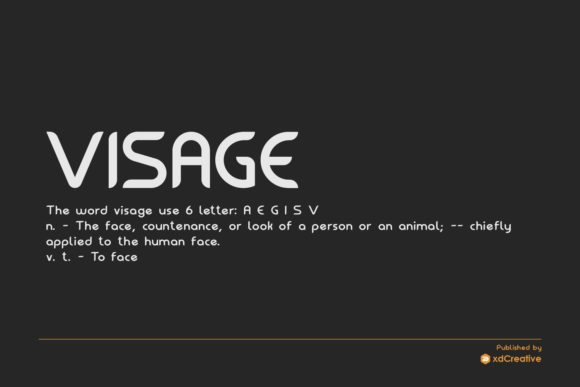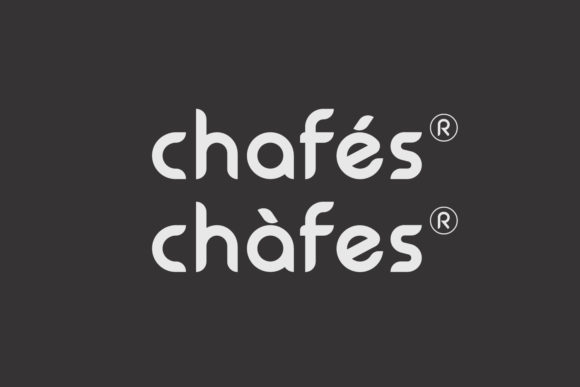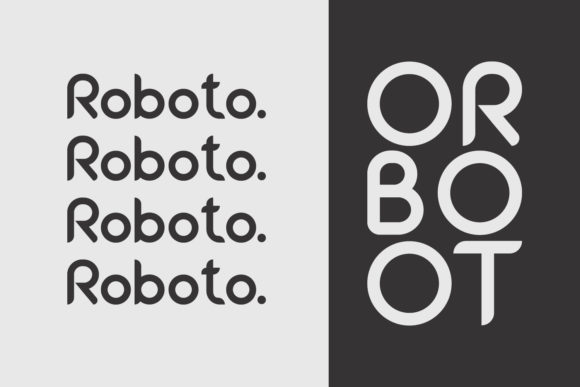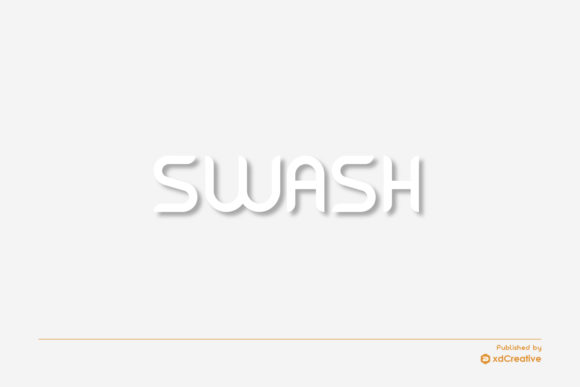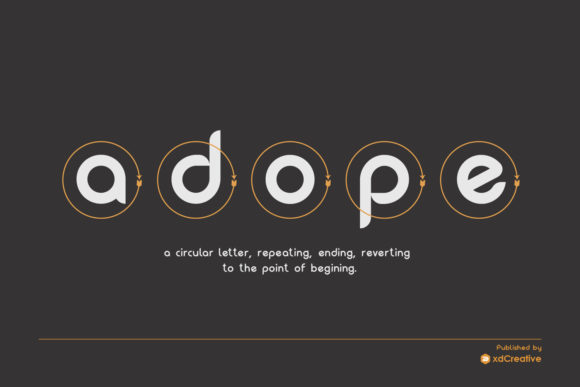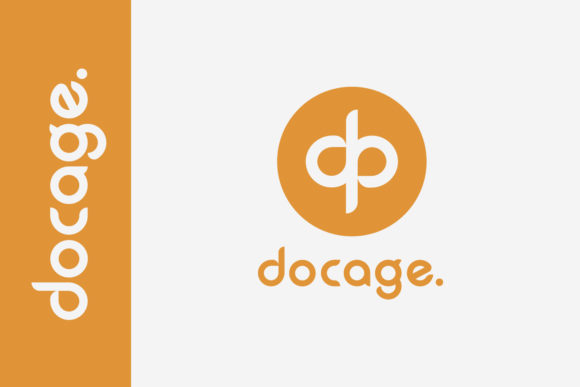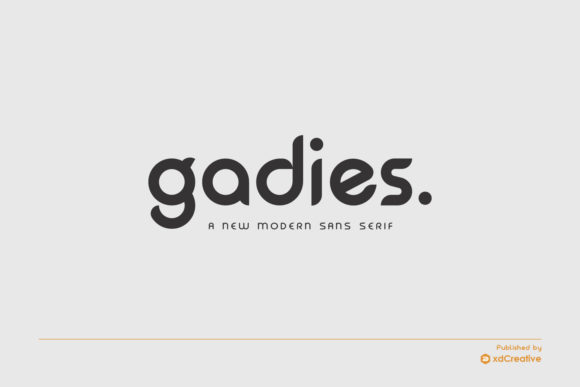
Gadies Font: Elevate Your Designs with a Modern Sans Serif Style
In the world of typography, fonts play a crucial role in conveying messages, expressing emotions, and creating visual identities. For designers and crafters, finding the perfect font can be a daunting task, especially when it comes to creating stunning visual effects. This is where Gadies Font comes into play – a modern sans serif font that is taking the design world by storm.
What is Gadies Font?
Gadies Font is a contemporary sans serif font designed to make a statement. Its clean lines, simple shapes, and fun style make it an excellent choice for a wide range of design projects, from formal presentations to non-formal social media graphics. With its unique and refreshing aesthetic, Gadies Font is perfect for designers looking to add a touch of modernity to their work.
Key Features of Gadies Font
- Modern Sans Serif Style: Gadies Font boasts a sleek and modern sans serif design, making it perfect for projects that require a clean and minimalist look.
- Fun and Playful: Despite its modern and sleek design, Gadies Font has a fun and playful side, making it suitable for non-formal designs, such as social media graphics, posters, and flyers.
- Versatile: Gadies Font is an incredibly versatile font that can be used in a variety of design projects, from formal presentations and reports to creative crafts and DIY projects.
- Easily Readable: The font is designed to be easily readable, even at small sizes, making it perfect for body text, headings, and titles.
Uses of Gadies Font
Gadies Font is an excellent choice for a wide range of design projects, including:
- Graphic Design: Use Gadies Font to create stunning graphic designs, such as posters, flyers, brochures, and social media graphics.
- Branding and Identity: Create a unique visual identity for your brand with Gadies Font, perfect for logos, business cards, and letterheads.
- Web Design: Enhance your website’s typography with Gadies Font, suitable for headings, titles, and body text.
- Crafts and DIY Projects: Add a personal touch to your craft projects, such as handmade cards, invitations, and scrapbooking.
Why Choose Gadies Font?
With so many fonts available, why choose Gadies Font? Here are a few reasons:
- Unique Style: Gadies Font offers a unique and refreshing style that will make your designs stand out from the crowd.
- High-Quality: Gadies Font is a high-quality font designed to deliver exceptional results, even at large sizes.
In conclusion, Gadies Font is an exceptional modern sans serif font that is perfect for designers and crafters looking to elevate their designs. Its unique style, versatility, and ease of use make it an excellent choice for a wide range of design projects. Whether you’re working on a formal presentation or a non-formal social media graphic, Gadies Font is sure to make a statement.